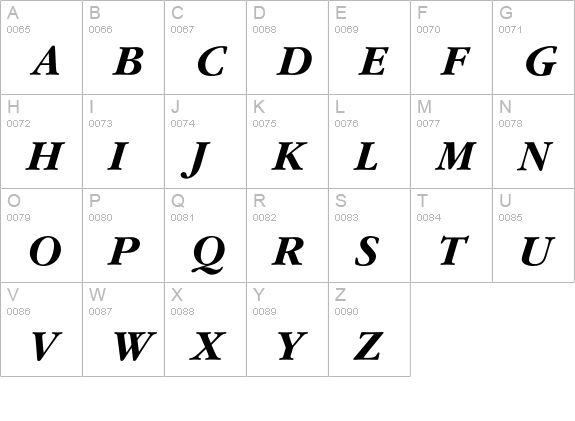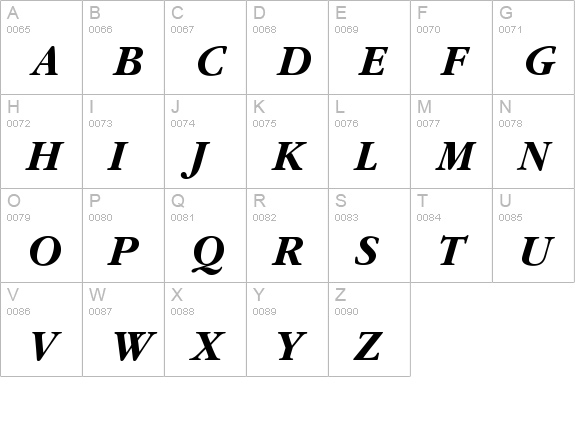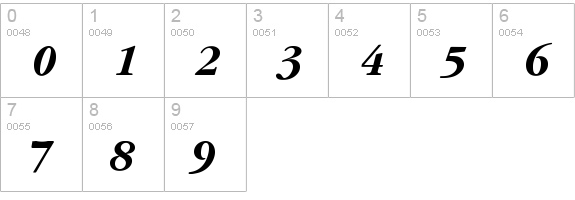
Garamond* Bold Italic is a strong, high-contrast, italic variant in the Garamond* typeface family \xE2\x80\x94 well suited to headlines, attention-grabbing titles, and strong calls-to-action.
Garamond Bold Italic is a timeless and elegant typeface that exudes sophistication and style. With its bold strokes and slanted serifs, this font commands attention and adds a touch of flair to any design project. Whether you're creating a modern logo, designing a sleek website, or crafting a striking poster, Garamond Bold Italic is the perfect choice to make a bold statement. Best of all, this stunning font is available for free download at FontsMarket.com. Accessible to all designers, this high-quality typeface can elevate your work without breaking the bank. Don't miss out on this opportunity to add Garamond Bold Italic to your font collection and bring your creative vision to life with its timeless appeal.